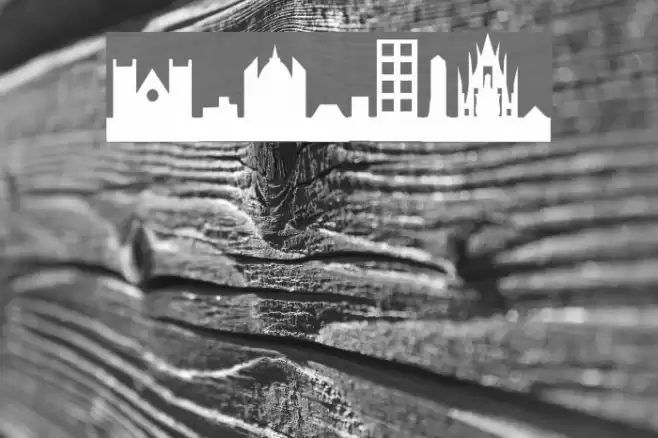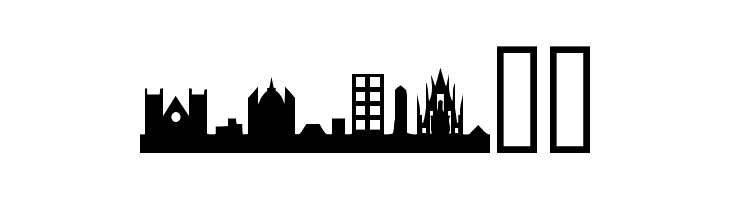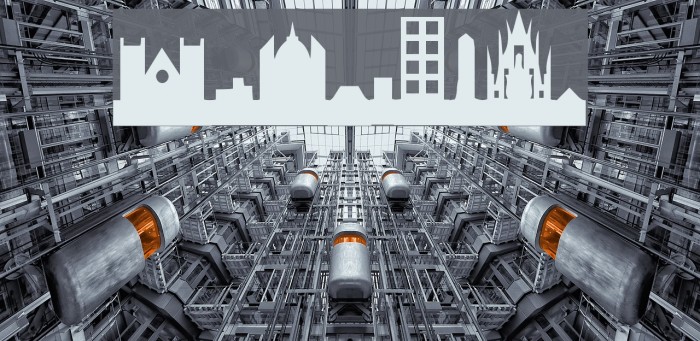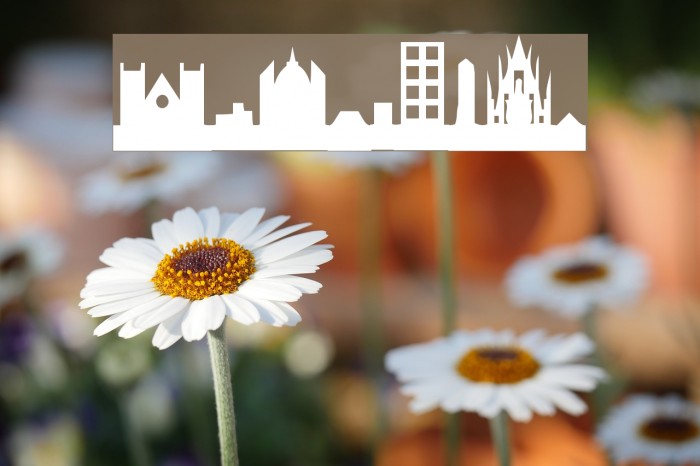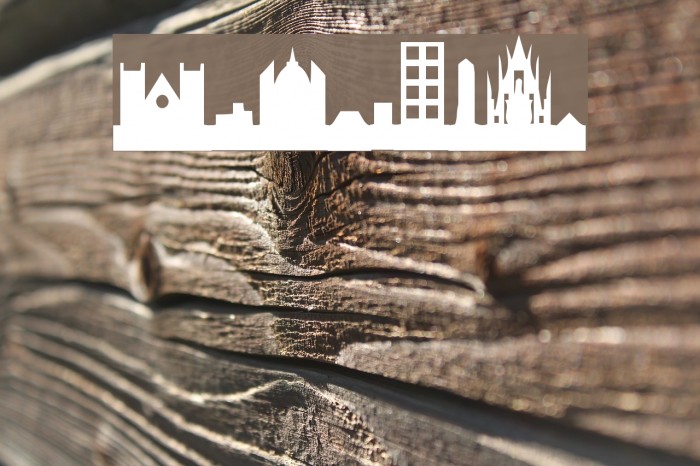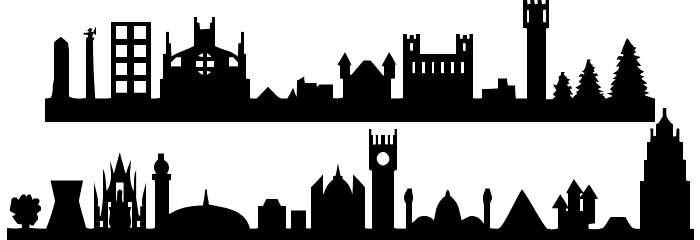
Cityscape!" Font
Cityscape!" Description
A decorative font featuring cityscape silhouettes as letterforms, with each character represented by a unique skyline or architectural outline. The style is bold and highly graphic, emphasizing strong, solid shapes with no internal detail, creating a striking visual impact.
City skyline silhouettes form each character in a bold, decorative style from Images & Symbols fonts.
- Proposed Projects: Event posters, travel brochures, city branding, themed invitations, urban-themed designs.
- Overall Style: Decorative, Urban, Modern
- Use Case: Headlines, Logos, Posters, Themed Graphics